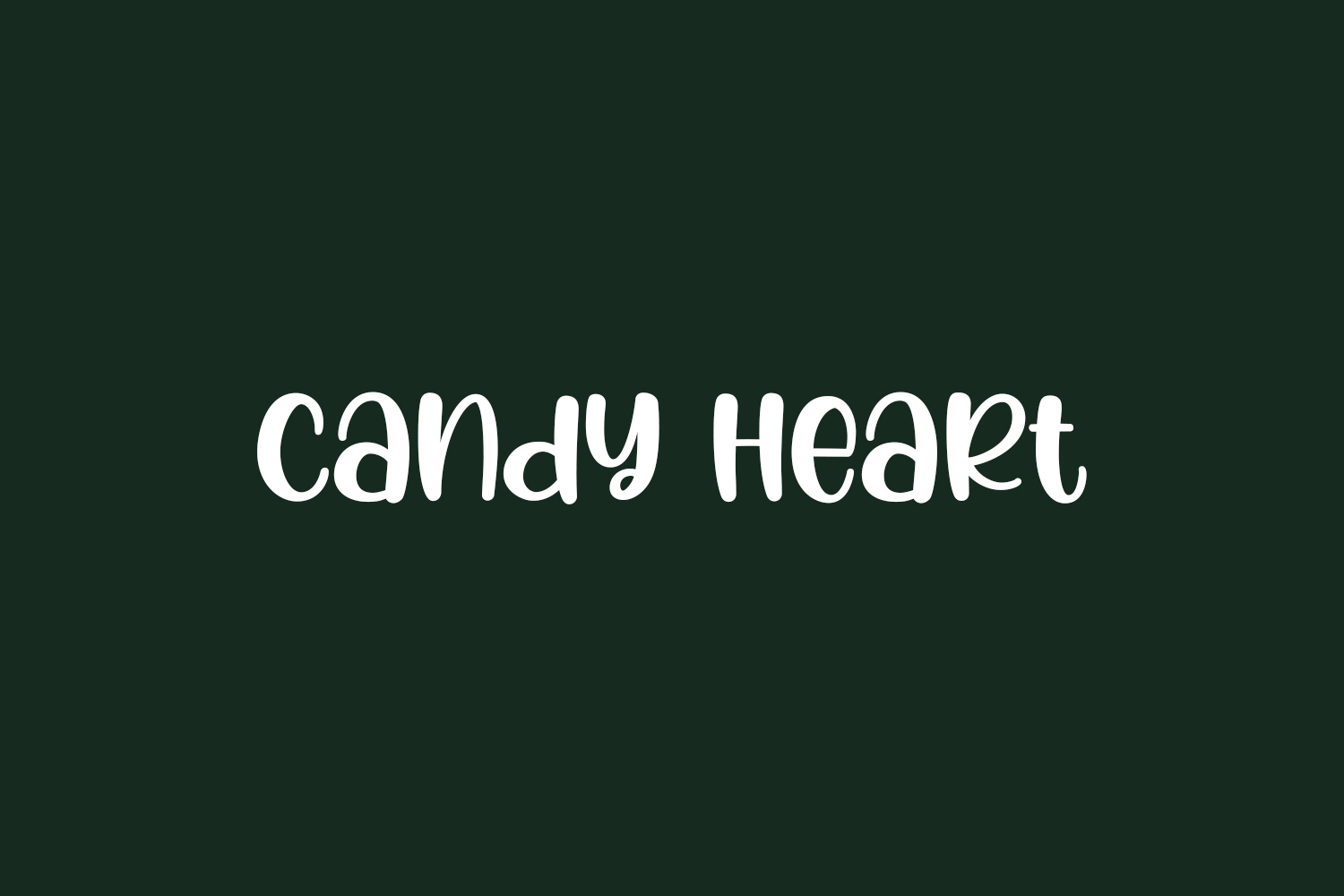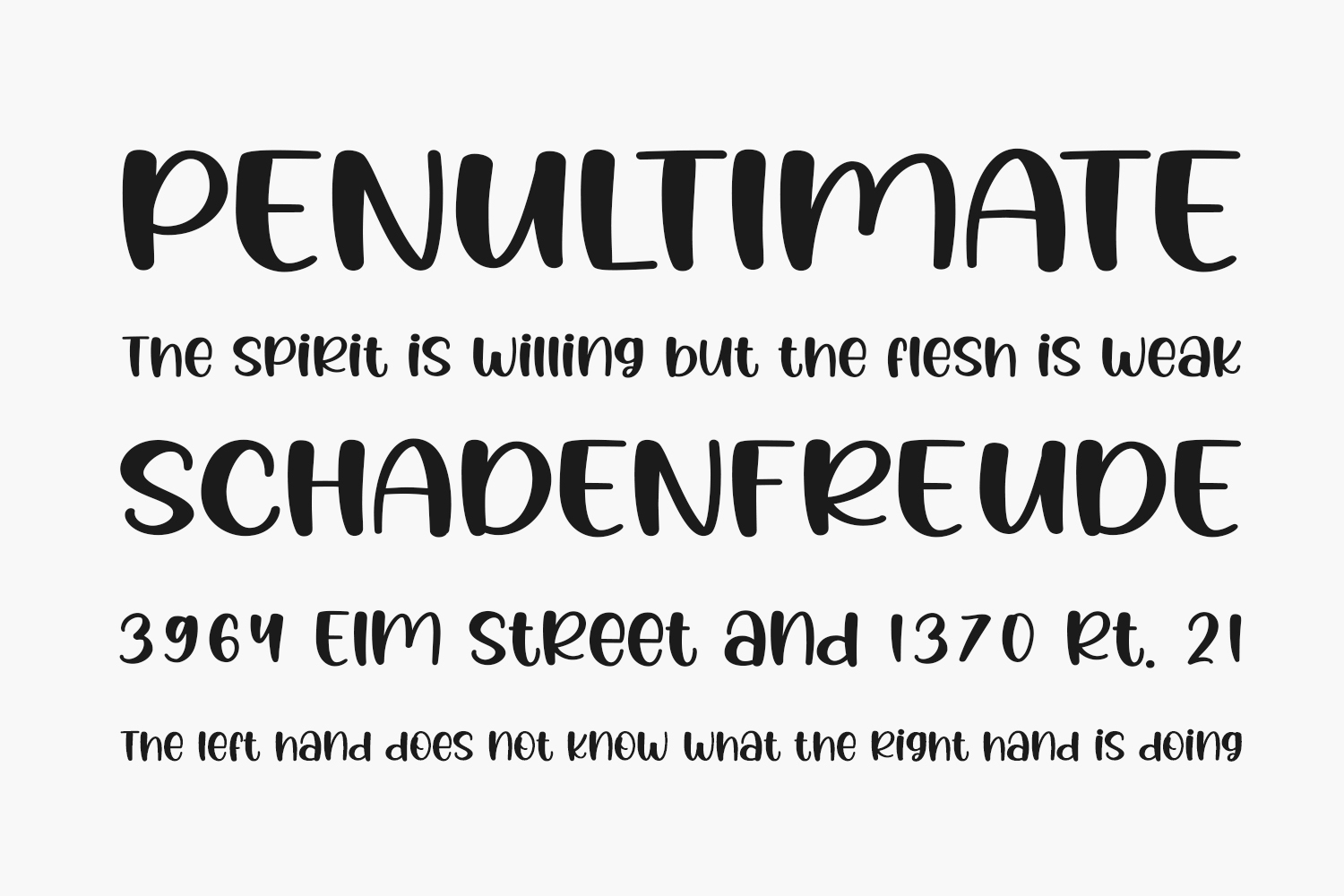
Candy Heart Free Font is a playful and whimsical typeface that features a fun and vibrant design. The font has a rounded and bubbly appearance with a playful feel, making it perfect for use in a variety of design projects such as greeting cards, invitations, posters, and more. The letters are designed in a unique way, with each character appearing as if it is made of candy. Candy Heart Font is free for personal use only. Please purchase the full version for commercial use.
Designed by Graphix Line Studio